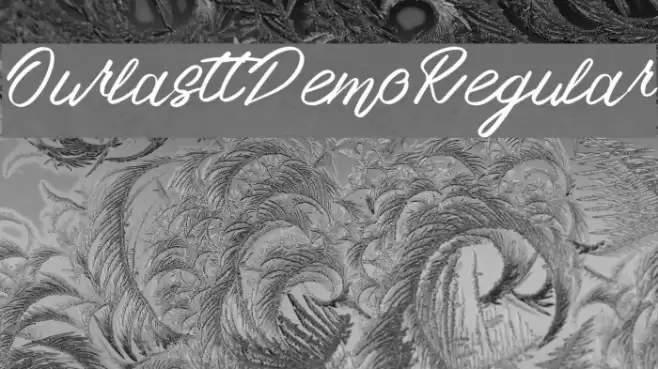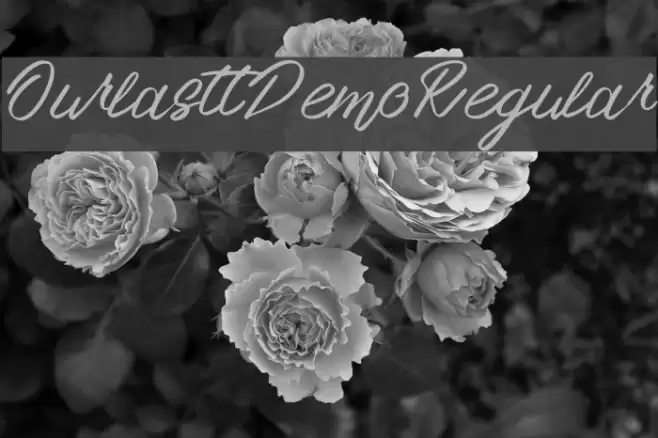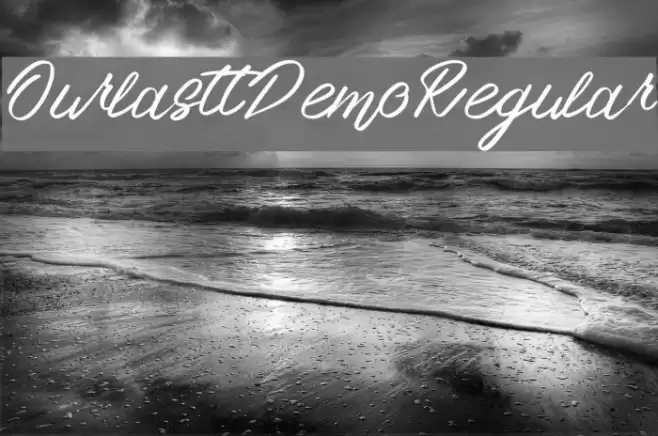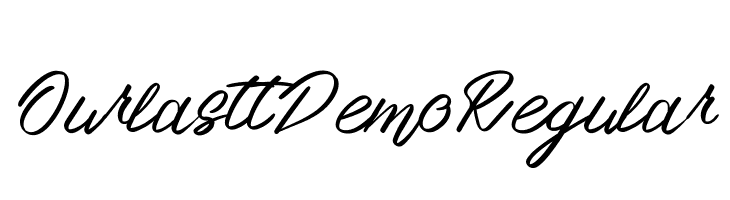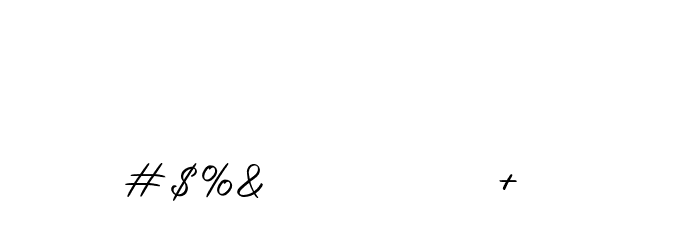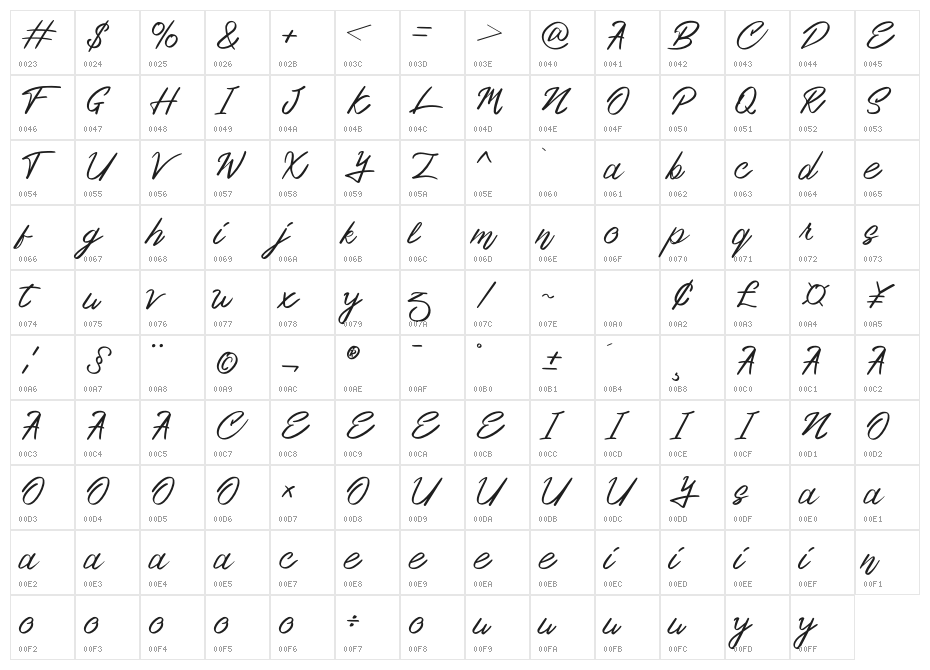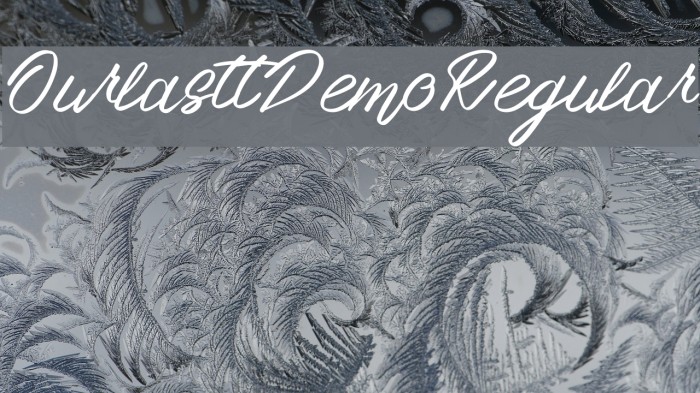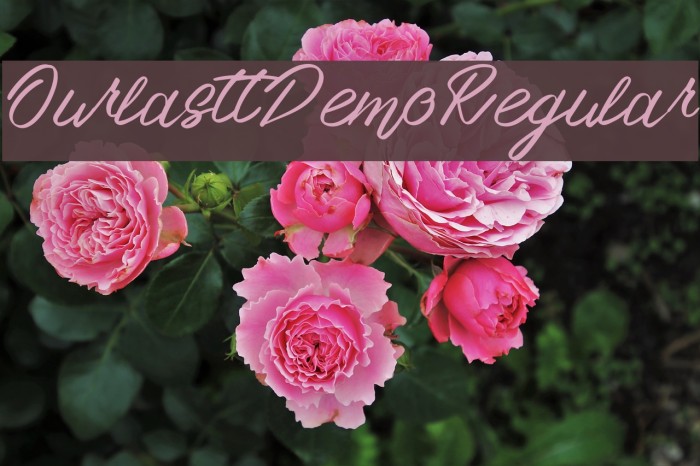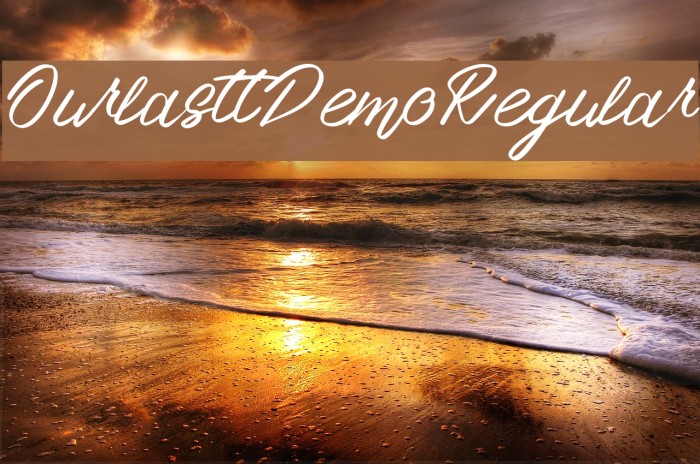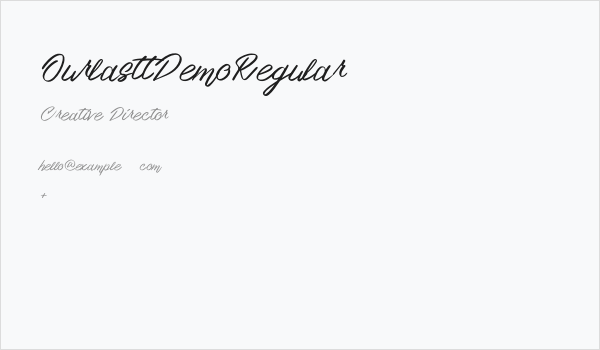
OurlasttDemoRegular Font
OurlasttDemoRegular Description
This font exhibits a dynamic and flowing script style, characterized by elegant, cursive letterforms that convey a sense of sophistication and fluidity. The uppercase letters are slightly more restrained, maintaining a consistent slant and smooth curves, while the lowercase letters are more expressive, with sweeping ascenders and descenders that add a touch of flair. The numerals and special characters are designed to complement the overall script aesthetic, ensuring a cohesive appearance across all glyphs. The font's strokes are moderately thick, providing good legibility without sacrificing its decorative appeal. It is well-suited for applications where a personal, handwritten touch is desired.
A dynamic and elegant script font with flowing, cursive letterforms from Uncategorized fonts.
- Proposed Projects: Ideal for wedding invitations, greeting cards, branding, and logo design.
- Overall Style: Elegant, Decorative
- Use Case: Logos, Invitations, Decorative text